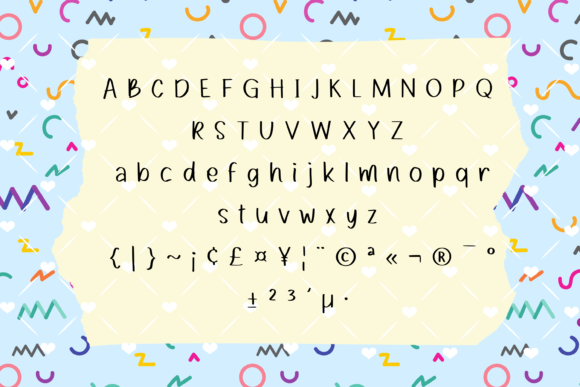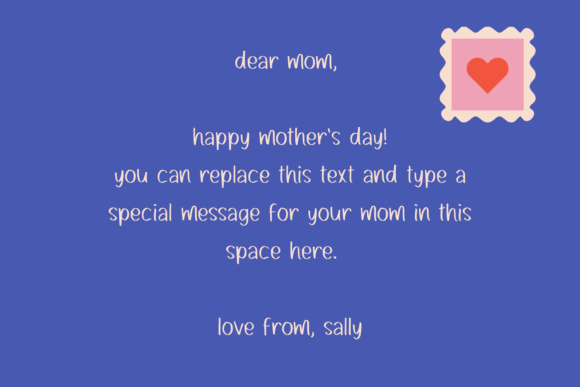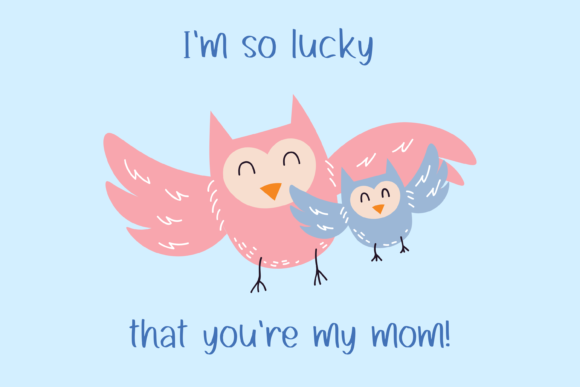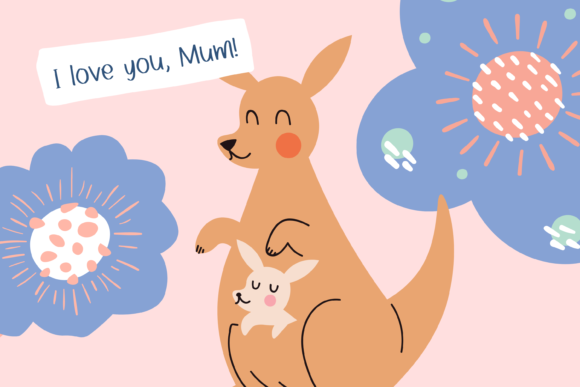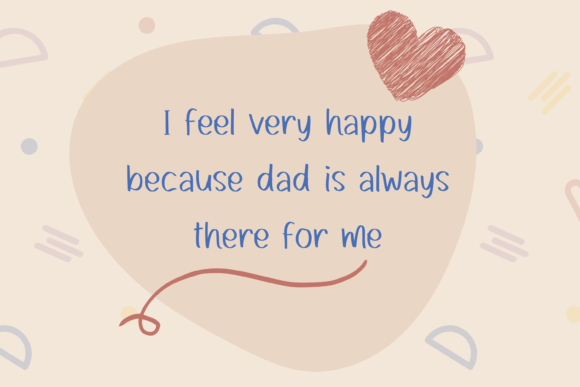
Marmots Font
About Marmots Font
Marmots is a sweet and friendly handwritten font. Its natural and unique style makes it incredibly fitting to a large pool of designs. The only limit is your imagination!